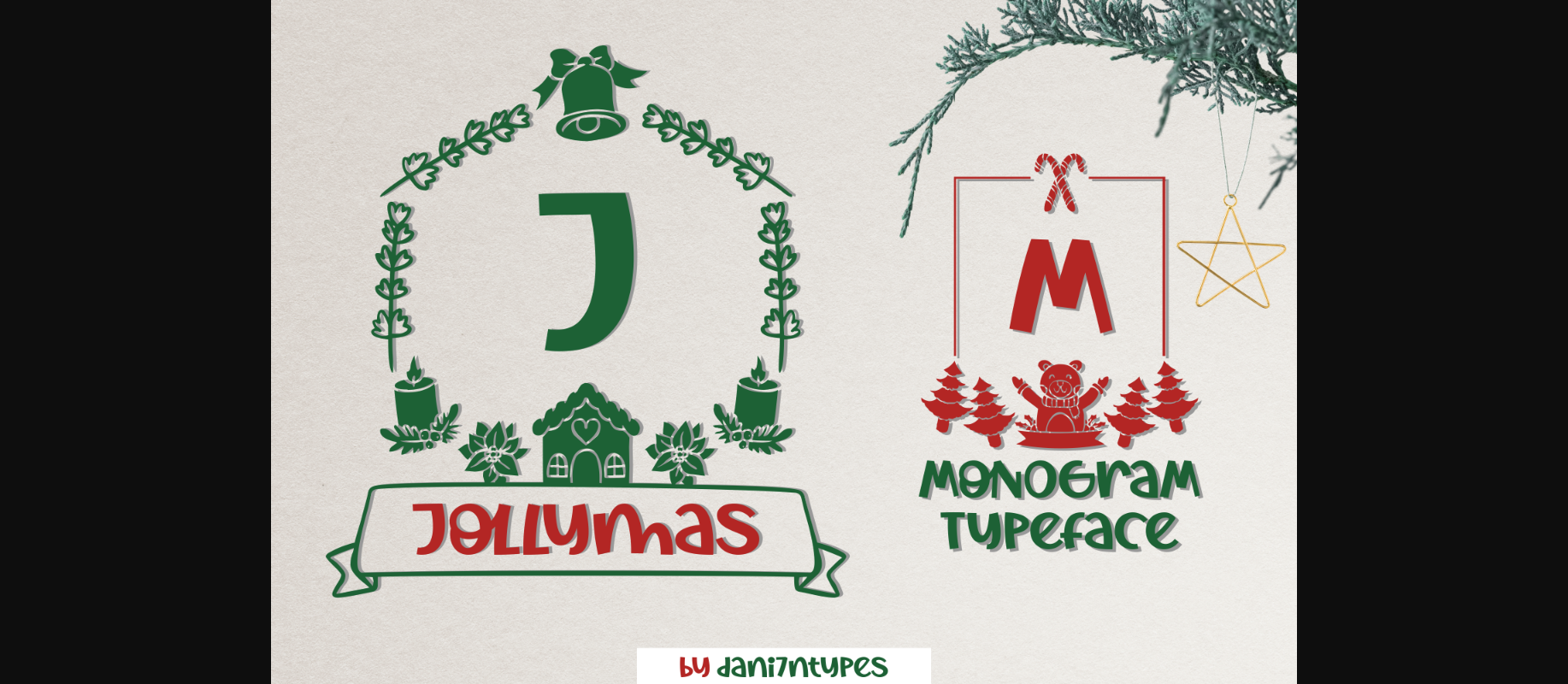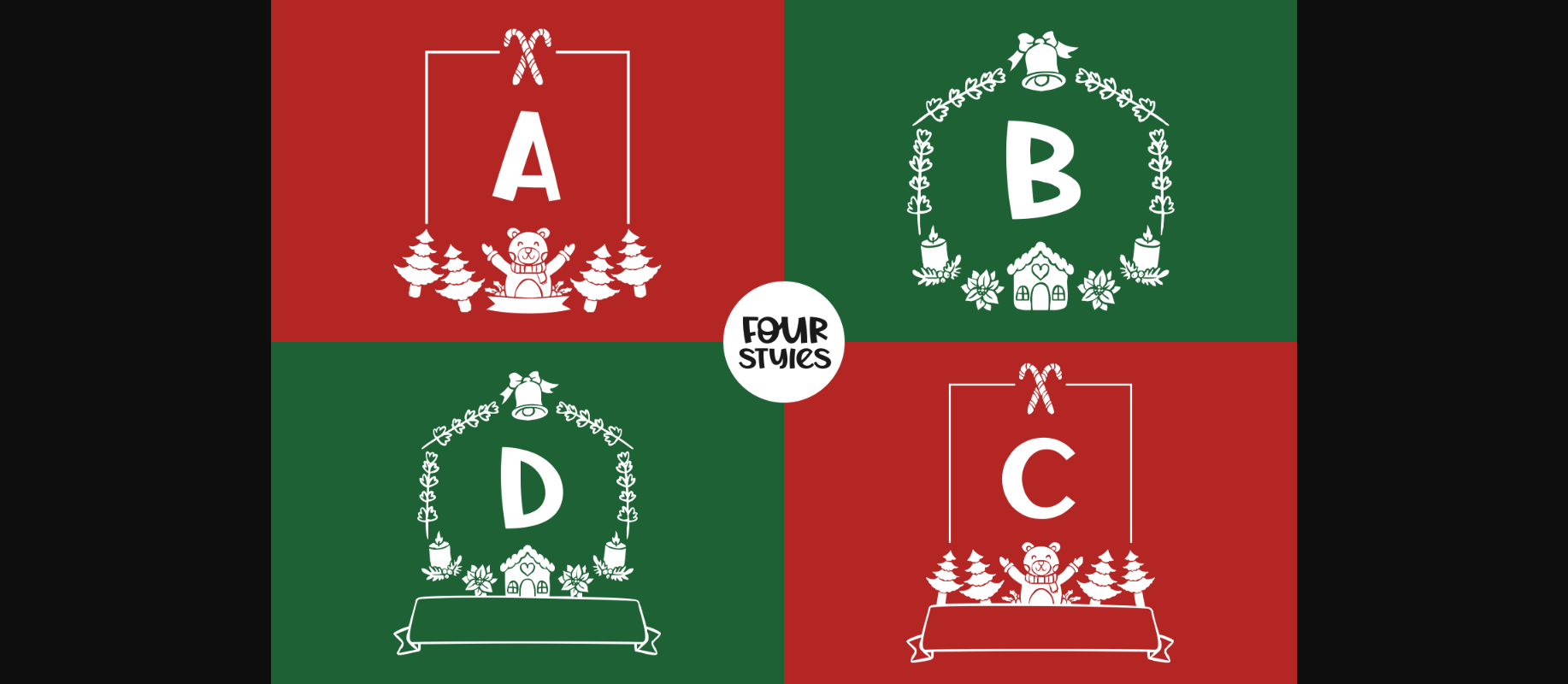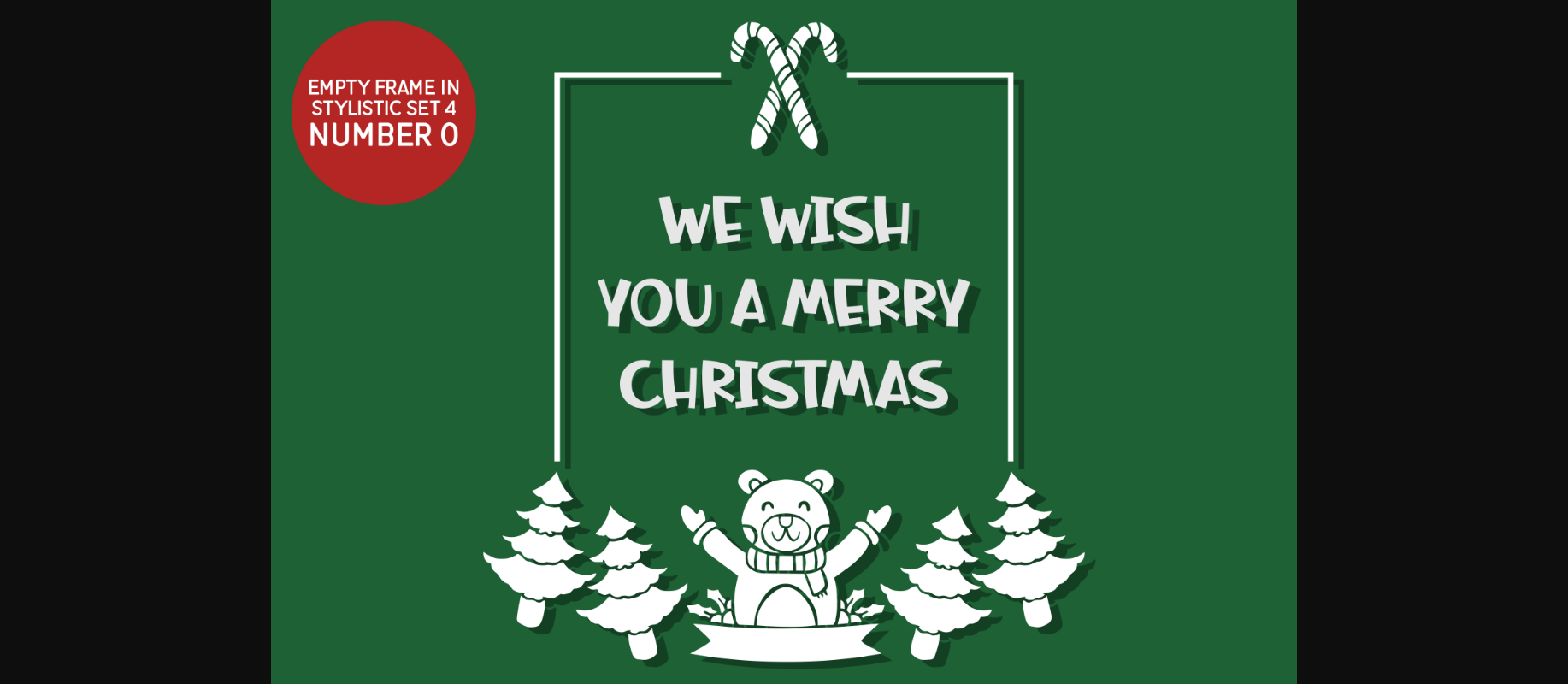
About Jollymas Font
Jollymas is a beautiful, festive and wintery decorative font. It is PUA encoded which means you can access all glyphs and swashes with ease! Add it confidently to your favorite creations and let yourself be amazed by the outcome generated.